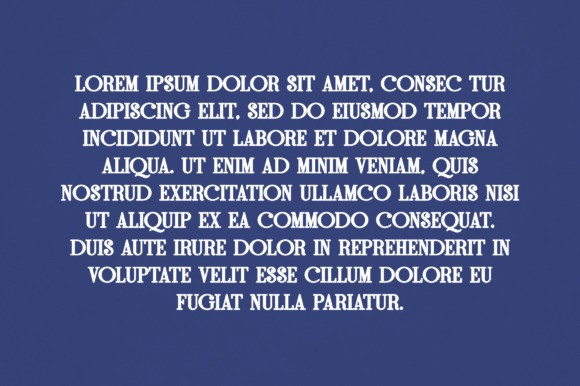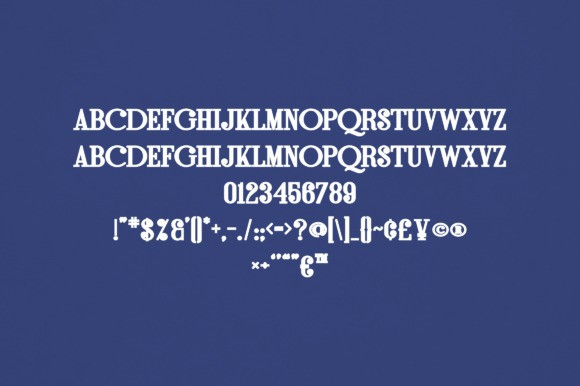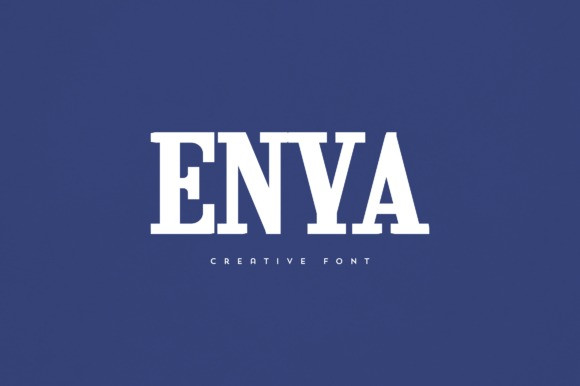
Enya Font
Enya Font is an elegant and versatile font that will make your typography truly unique! It will enchant every logo, branding, headline, or plain text!